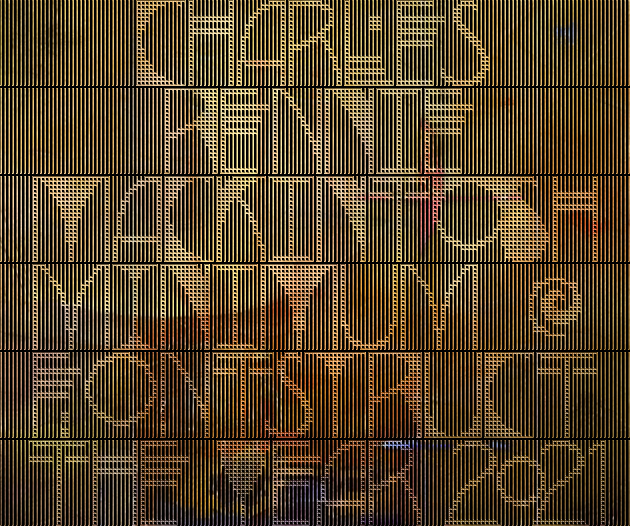
tm RenMac
by minimum
Inspired by the work of Charles Rennie Mackintosh, specifically the Willow chair. I'm not sure how "twenties" this font is, especially since the Willow chair was designed in 1902, but it seems to kinda fit.
Impressive how you have created these deco curves by simply using horizontal and vertical lines and it works so well at different sizes!
Works beautifully at larger sizes.
Quite the intricate and unique design